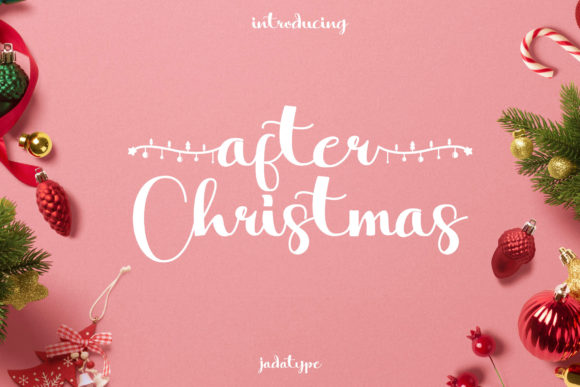
The Magical After Christmas Font: Elevate Your Designs with Elegance
- ✅ Elegant and unique design that’s perfect for special occasions
- ✅ Highly versatile and adaptable to various design projects
- ✨ Beautifully crafted to add a touch of sophistication to any design
While the After Christmas Font is exceptional, there are a few minor quirks to consider:
- ⚠️ Some users might find the font a bit challenging to read in smaller sizes
- 🤔 Limited availability of certain characters, but this can be addressed with the PUA encoding
The Designer Inspiration Behind After Christmas Font
The After Christmas Font was crafted with elegance and sophistication in mind. Its creator drew inspiration from traditional calligraphy and modern typography to create a unique and versatile font. The result is a beautiful, refined font that’s perfect for a variety of design projects.
| Q: What is the After Christmas Font? | A: The After Christmas Font is a lovely, elegant, and unique decorative font designed for special occasions. |
| Q: Is the After Christmas Font PUA encoded? | A: Yes, the After Christmas Font is PUA encoded, making it easy to access glyphs and swashes. |